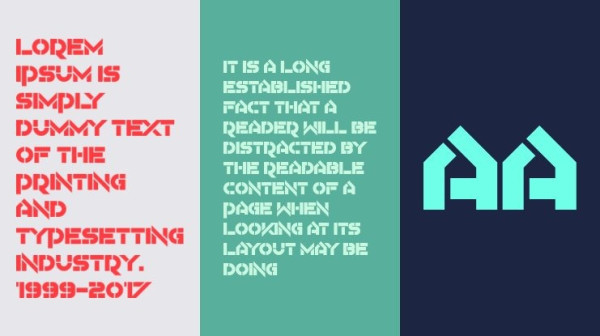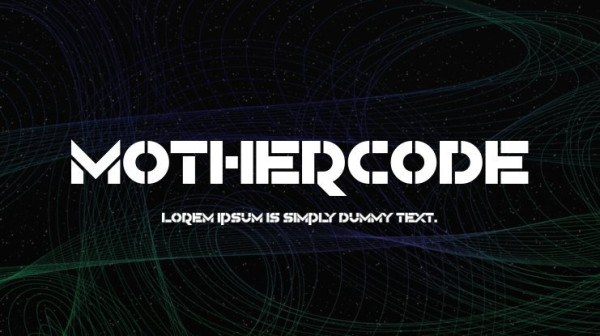
Mothercode Font
Mothercode Font, This bundle features strong, confident and powerful typefaces designed to work great with sports logos, club branding, apparel applications, labels and more.